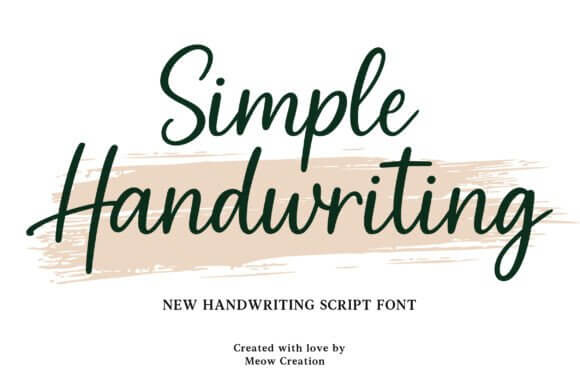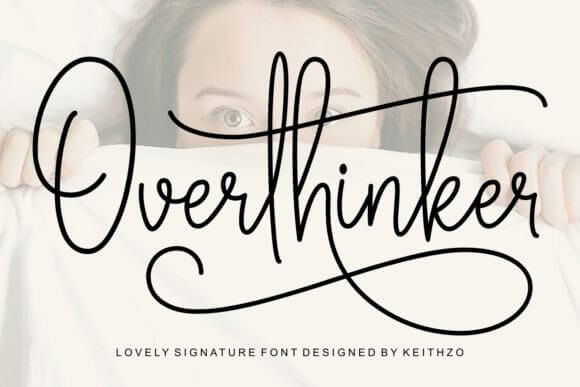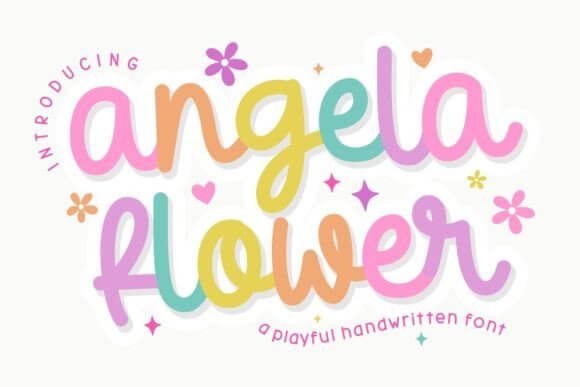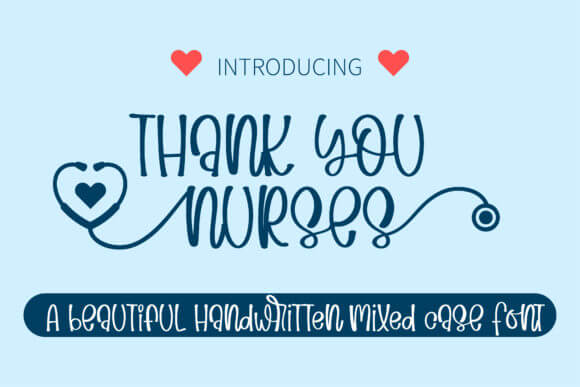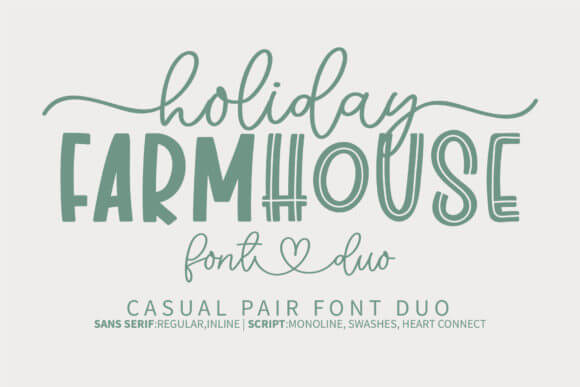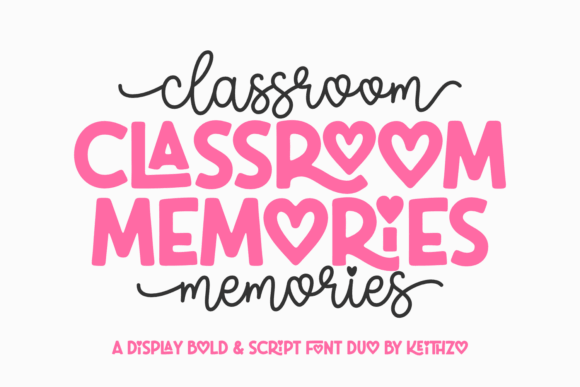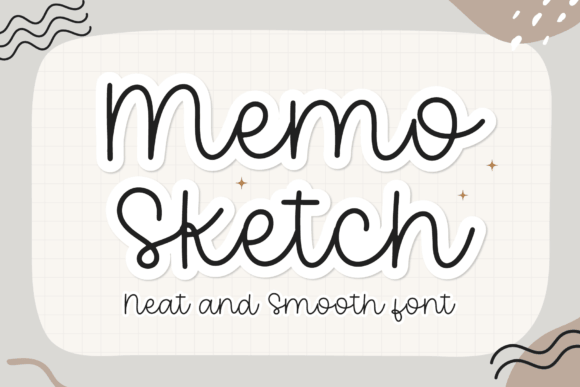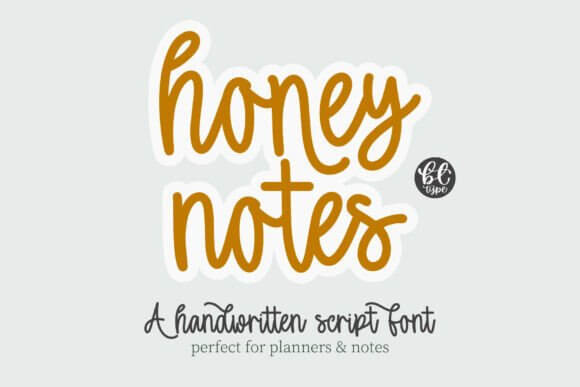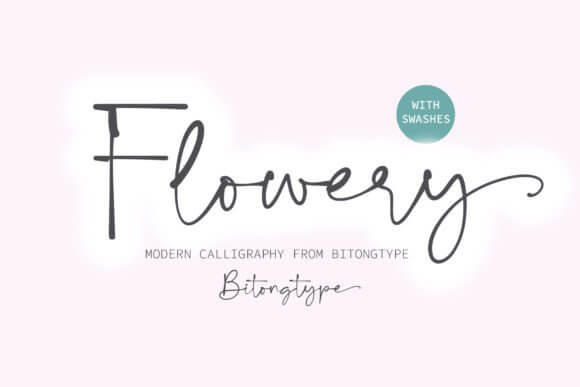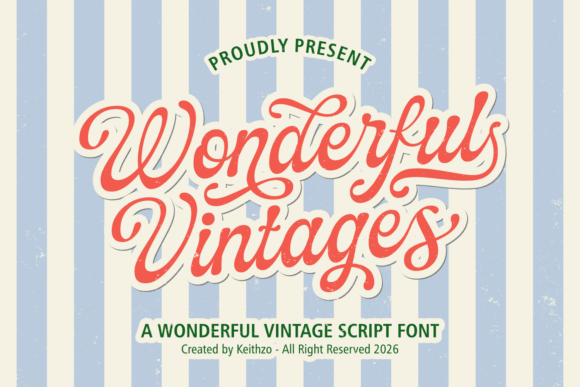
At Increobox, we keep seeing the same problem: people want handwriting fonts that feel warm, readable, and a little imperfect, then they land on stiff script that looks like it came from a robot with a gel pen. Good handwriting fonts can lift wedding invites, classroom printables, product labels, logos, quote graphics, and social posts in seconds. A loose cursive style feels personal. A sharper calligraphy look sells polish. This list pulls together 16 picks that move from playful alphabet designs to vintage signatures and note-style lettering, so you can match the font to the mood instead of forcing one pretty typeface onto every project. Some are sweet, some moody, some dead simple, and honestly that mix matters.
Simple Handwriting For Clean Casual Design
Simple Handwriting does the quiet job really well. The strokes look casual, open, and readable, so you can drop it into planners, product cards, or small brand assets without that fake-calligraphy wobble that ruins good layouts. At Increobox, we’d grab it first for logo lettering when a business wants something friendly, clean, and low-drama.
Best Places To Use This Font
- Minimal logos for local shops
- Recipe cards and kitchen printables
- Soft planner section headers
- Subscription box thank-you inserts
Overthinker For Moodier Handwritten Layouts
Overthinker feels rougher, moodier, a little scribbled in the best way. It gives headlines and quote graphics that late-night notebook energy, which sounds odd until you need text that looks personal instead of polished. We think it shines in journal quote graphics, indie merch, and expressive cover art where neat fonts just look bland.
Best Places To Use This Font
- Indie zine covers
- Personal diary quote art
- Bookish sticker packs
- Music poster captions
Angela Flower For Soft Feminine Lettering
Angela Flower leans sweet, soft, and lightly decorative, so it fits designs that want a romantic edge without going full wedding-cake script. The shapes stay readable, which matters more than people admit. We’d use it for wedding stationery, floral shops, handmade packaging, and gentle beauty branding that needs warmth, not stiffness.
Best Places To Use This Font
- Bridal shower invitations
- Flower shop swing tags
- Soap wrap typography
- Skincare brand story cards
Thank You Nurses For Warm Tribute Graphics
Thank You Nurses carries gratitude right in the name, and the handwritten style helps that message land like a real note instead of a stock template. That makes it useful for community campaigns, appreciation gifts, and fundraiser graphics. For thank you card design, this one feels direct, kind, and honestly hard to mess up.
Best Places To Use This Font
- Hospital appreciation posters
- Charity event flyer headlines
- Volunteer gift notes
- Recovery care package labels
Holiday Farmhouse For Rustic Seasonal Crafts
Holiday Farmhouse brings rustic charm without turning cheesy, which is rare because seasonal fonts can get loud fast. This one feels like a hand-painted sign in a good little shop, cozy and steady. We’d pull it into holiday sign making, Christmas mugs, kitchen decor, and gift tags that want that handmade market feel.
Best Places To Use This Font
- Wooden porch sign graphics
- Christmas mug decals
- Farmhouse kitchen wall art
- Seasonal gift tag sets
Classroom Memories For School Style Projects
Classroom Memories looks playful but still organized, so teachers and parents won’t fight with messy letterforms at small sizes. That balance matters on worksheets, bulletin boards, and name labels. For classroom printables, it gives enough personality to feel fun without wrecking readability, which, yeah, is the whole battle.
Best Places To Use This Font
- Teacher binder covers
- Student name labels
- Bulletin board titles
- Homeschool routine charts
Memo Sketch For Scribbled Creative Concepts
Memo Sketch has that quick-note energy, almost like somebody wrote an idea in the margin and it turned into a font. We love that. It works for mockups, brainstorm boards, and casual headers, especially when you want sketchbook typography that feels alive, slightly uneven, and way less corporate than standard script options.
Best Places To Use This Font
- Concept board headlines
- Art journal page titles
- Scrapbook memory captions
- Mockup note callouts
Honey Notes For Sweet Note Style Branding
Honey Notes feels sweet but not sugary, and that tiny distinction saves a design from looking childish. The flow stays soft, so it suits labels, cards, and cozy lifestyle visuals with a handmade pulse. We’d test it first in packaging mockups for candles, soap, baked goods, or note-based branding that wants charm fast.
Best Places To Use This Font
- Candle label fronts
- Bakery box messages
- Boutique tissue stickers
- Cozy product insert cards
Flowery For Decorative Script And Floral Vibes
Flowery pushes farther into decorative territory, so use it when plain handwriting fonts feel too safe. The curves add instant romance and a touch of garden energy, which sounds dramatic because it is. For floral branding, spring promos, and feminine event pieces, this font gives you pretty detail without drowning the message.